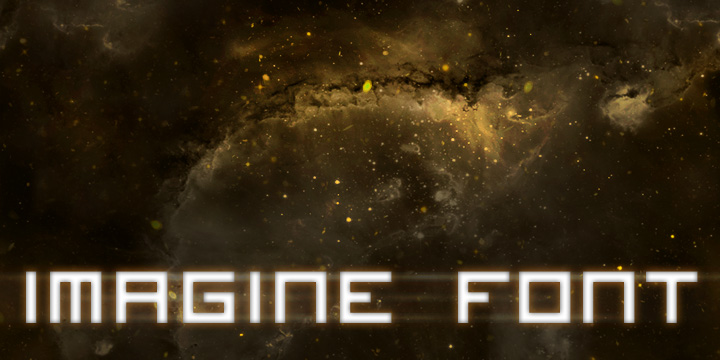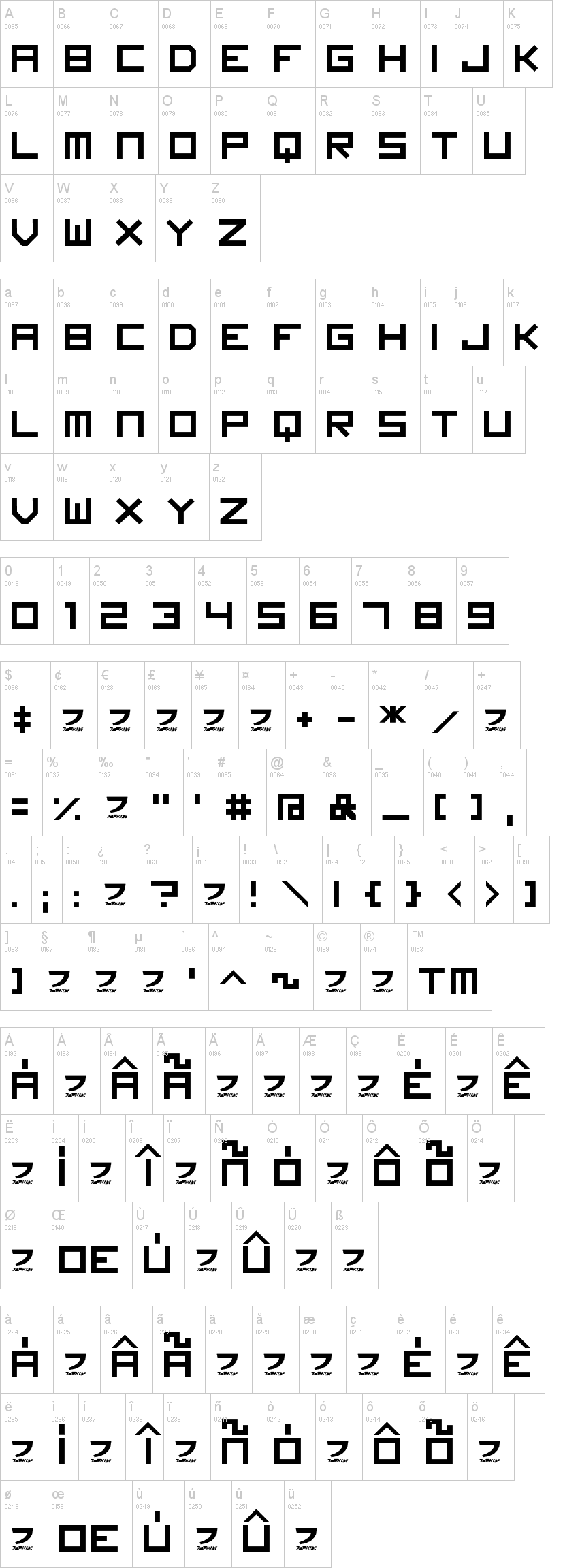
Note of the authorImagine Font
was redesigned in 2019 - many special characters for various languages added.
This futuristic small cabs was created for my Game Project "ImagineEarth.info" A nice simple techno square font for headlines and styles!